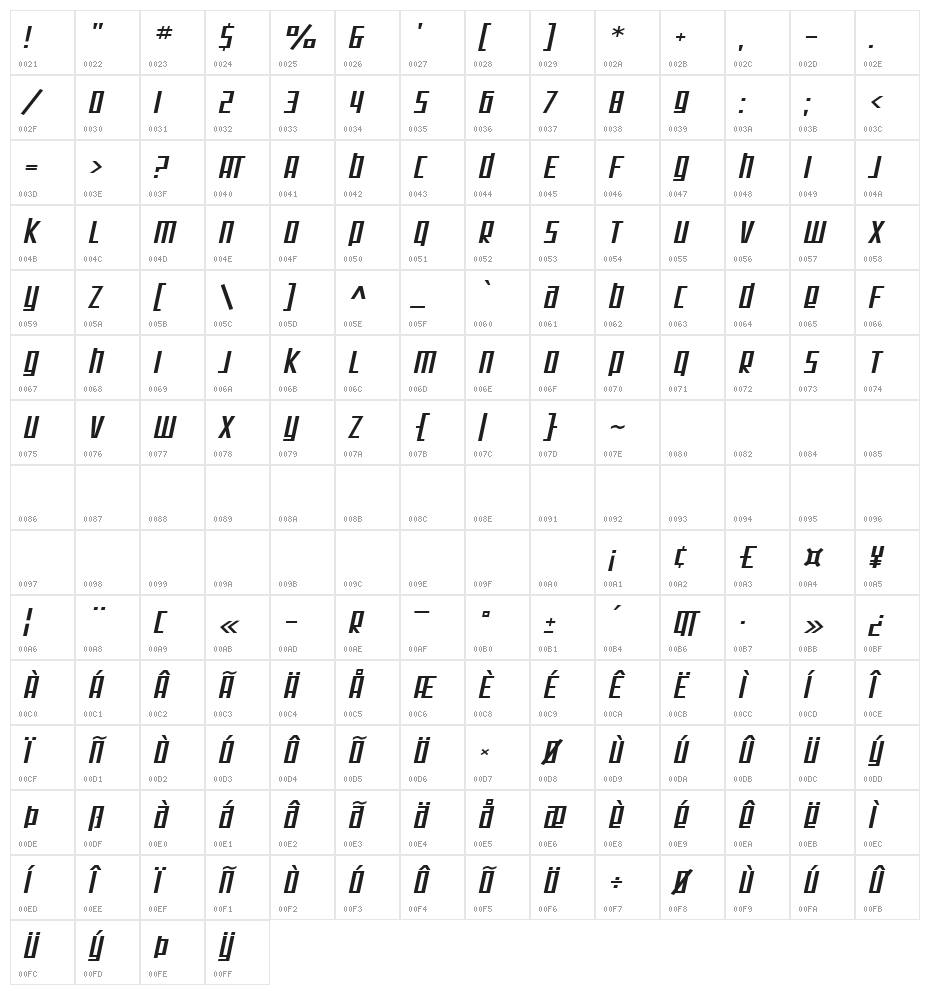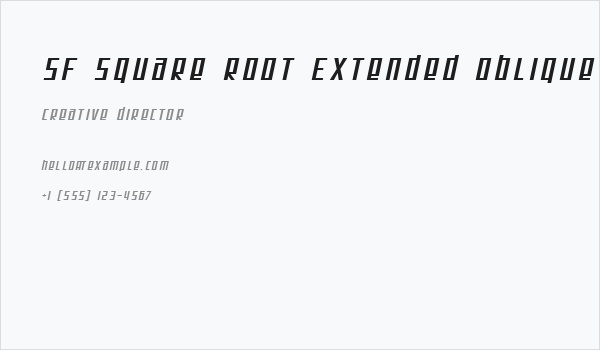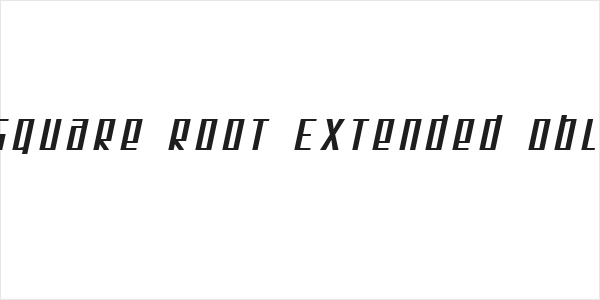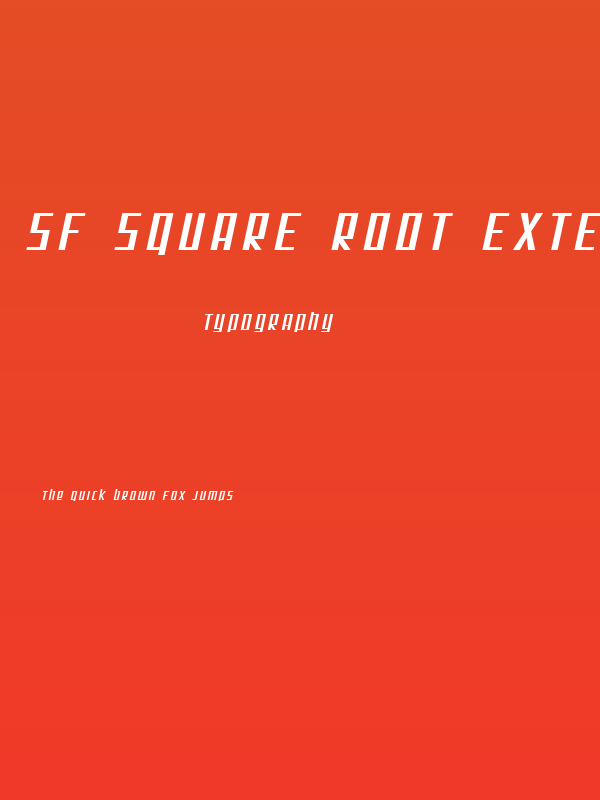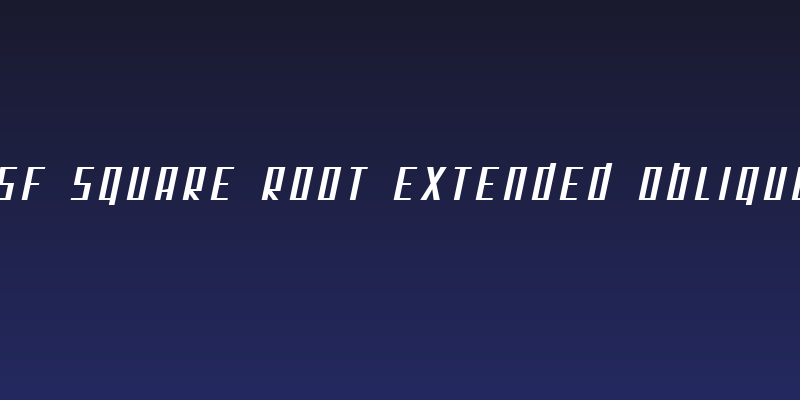
SF Square Root Extended Oblique Font
SF Square Root Extended Oblique Description
This font features a modern, geometric style with a distinct oblique slant, giving it a dynamic and forward-moving appearance. The characters are constructed with sharp angles and clean lines, creating a futuristic and technical look. The uppercase and lowercase letters maintain a consistent style, with the uppercase being slightly more elongated. Numbers and special characters follow the same design principles, ensuring uniformity across all glyphs. The overall aesthetic is sleek and contemporary, making it suitable for projects that require a bold and innovative touch.
| Proposed Projects | Ideal for technology branding, futuristic posters, and innovative product packaging. |